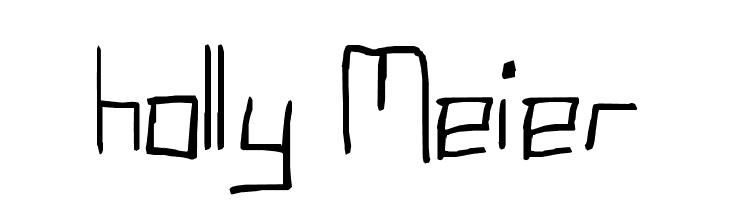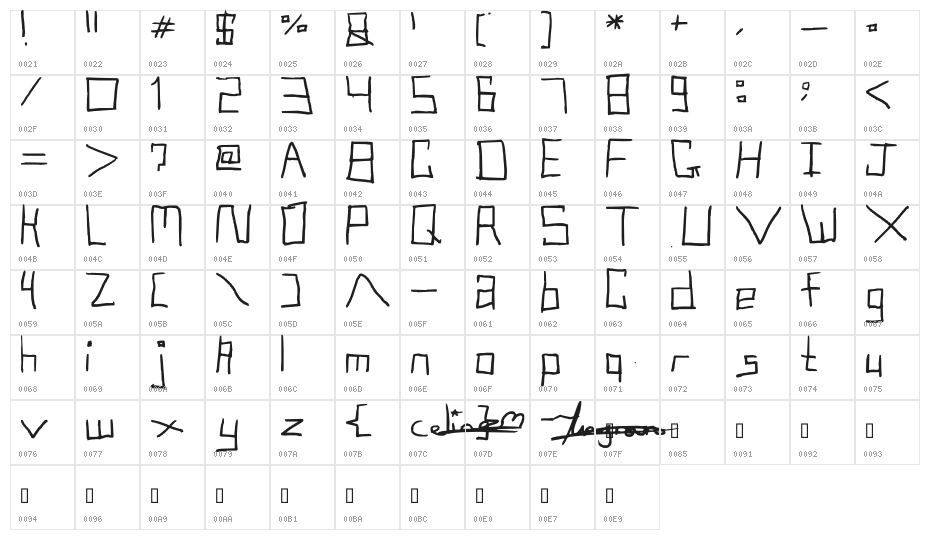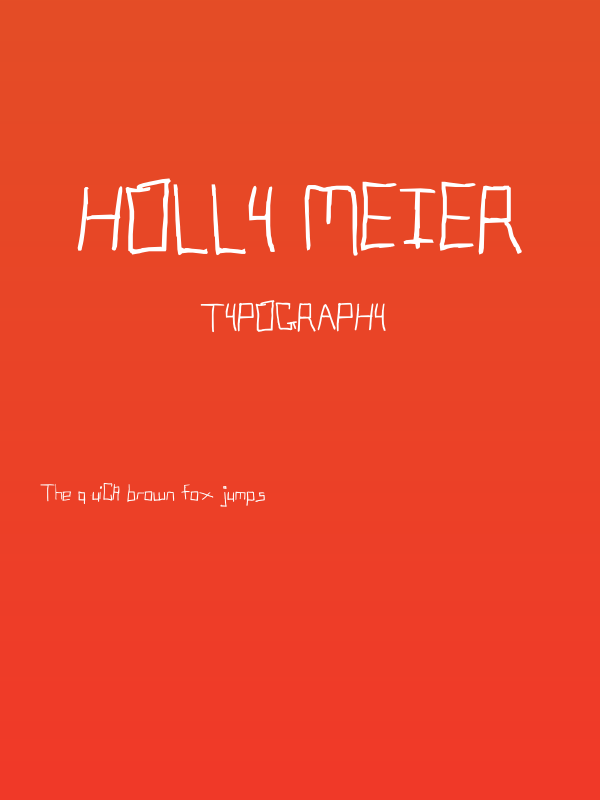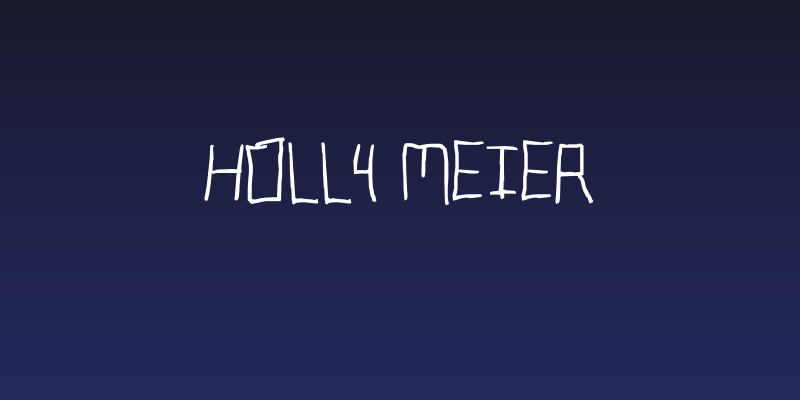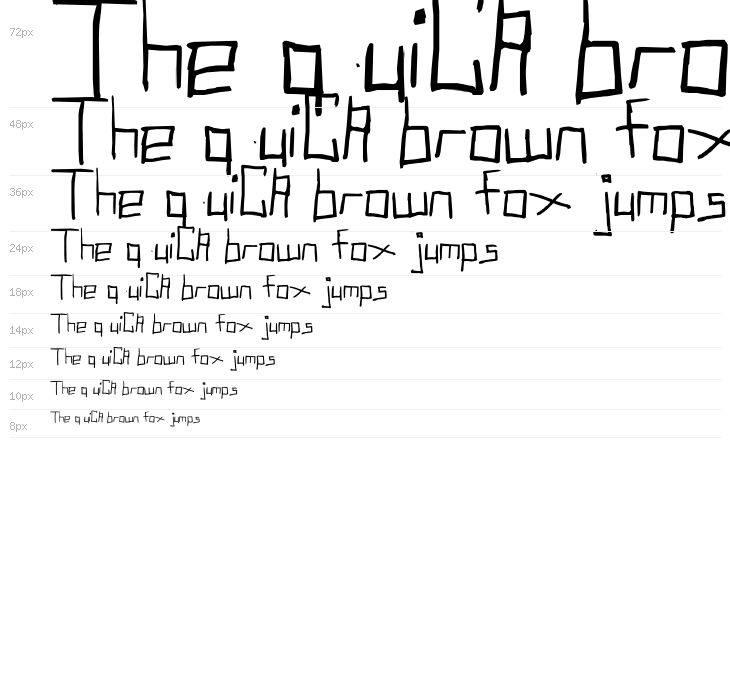
holly Meier Font
holly Meier Description
This font features a unique, hand-drawn style with irregular, angular lines that give it a distinct, artistic appearance. The characters are formed with uneven strokes, creating a playful and informal look. The uppercase and lowercase letters maintain a consistent height, while the numbers and special characters follow the same quirky design. This font's unconventional style makes it stand out, offering a creative and personal touch to any project.
| Proposed Projects | Ideal for creative projects such as posters, album covers, children's books, and artistic branding. |